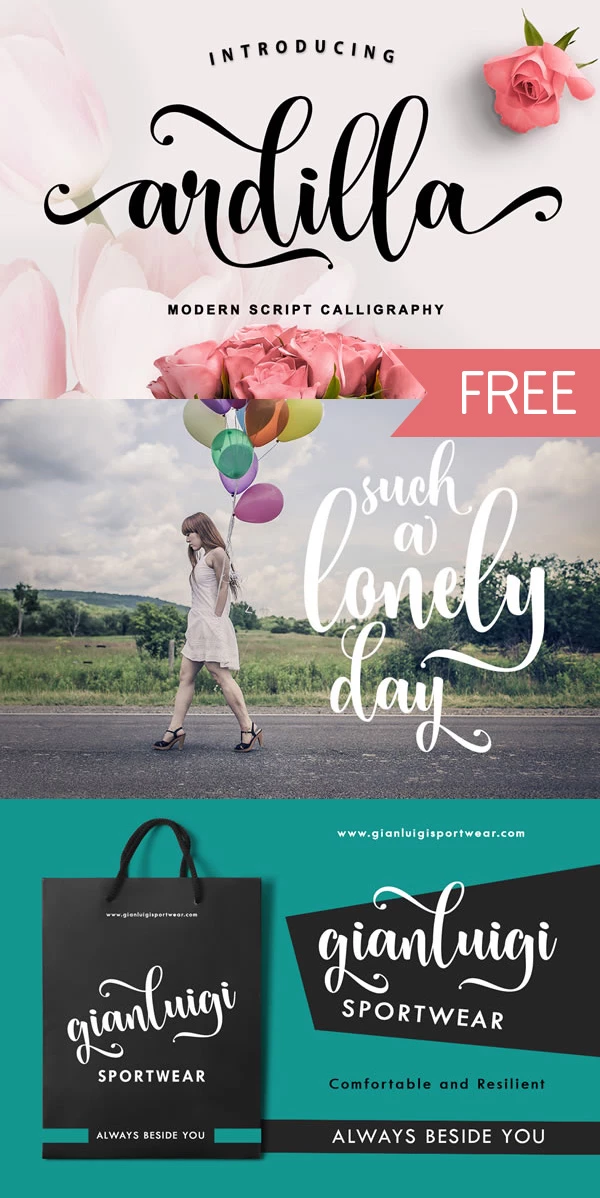
Free Ardilla Handwritten Script Font
Use it for amazing projects such as:
- T-shirts
- Business cars
- Mugs
- Totes
- Wall Art
- Cards
- Tumblers
- Cake Toppers
- Social media images
- Planners
- and more!